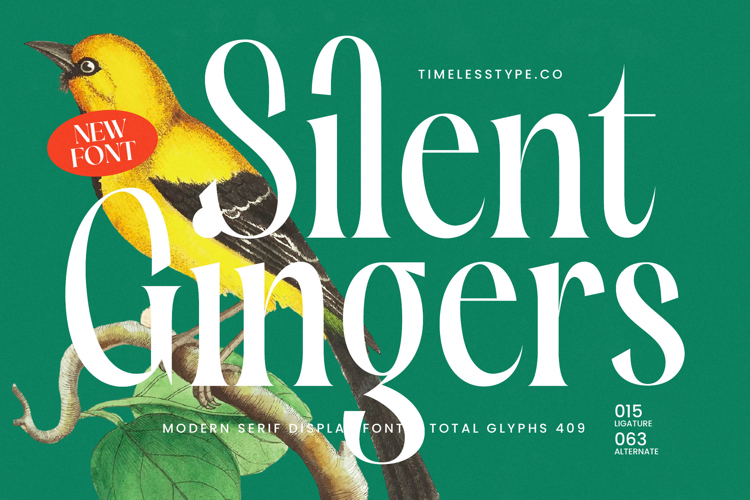
Silent Gingers - Modern Serif Display
Discover the captivating allure of Silent Gingers - Modern Serif Display, a typeface meticulously crafted to command attention. This high-contrast modern serif display font exudes an unparalleled sense of timeless elegance and sophistication, making it an instant focal point in any creative endeavor. Its distinctive letterforms blend classic serif appeal with contemporary lines, offering designers a powerful tool for impactful typography that truly stands out.
Elevate your brand's visual identity with the sophisticated presence of Silent Gingers - Modern Serif Display. It is perfectly suited for luxury branding, high-end editorial layouts, exclusive product packaging, and fashion communications. This font’s bold yet refined aesthetic ensures your headlines, logotypes, and display text resonate with authority and a truly upscale feel, making it ideal for projects demanding a touch of grandeur and professionalism.
Expand your creative reach effortlessly. With its extensive multilingual support, Silent Gingers - Modern Serif Display adapts seamlessly across global markets, making it incredibly versatile for international projects. This ensures your message maintains its powerful impact and professional integrity, regardless of language or geographic location, fostering consistent brand recognition and a polished global presence.